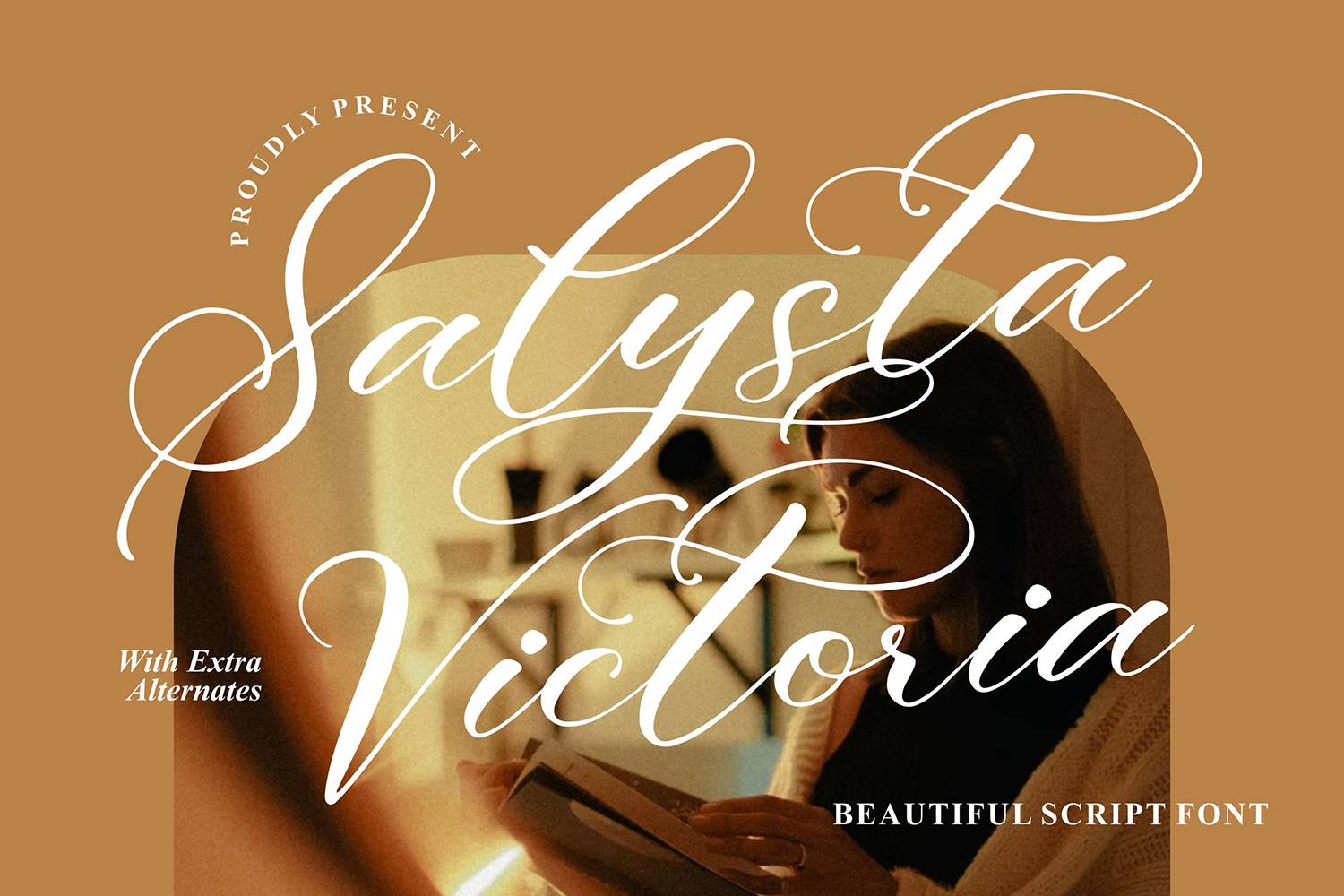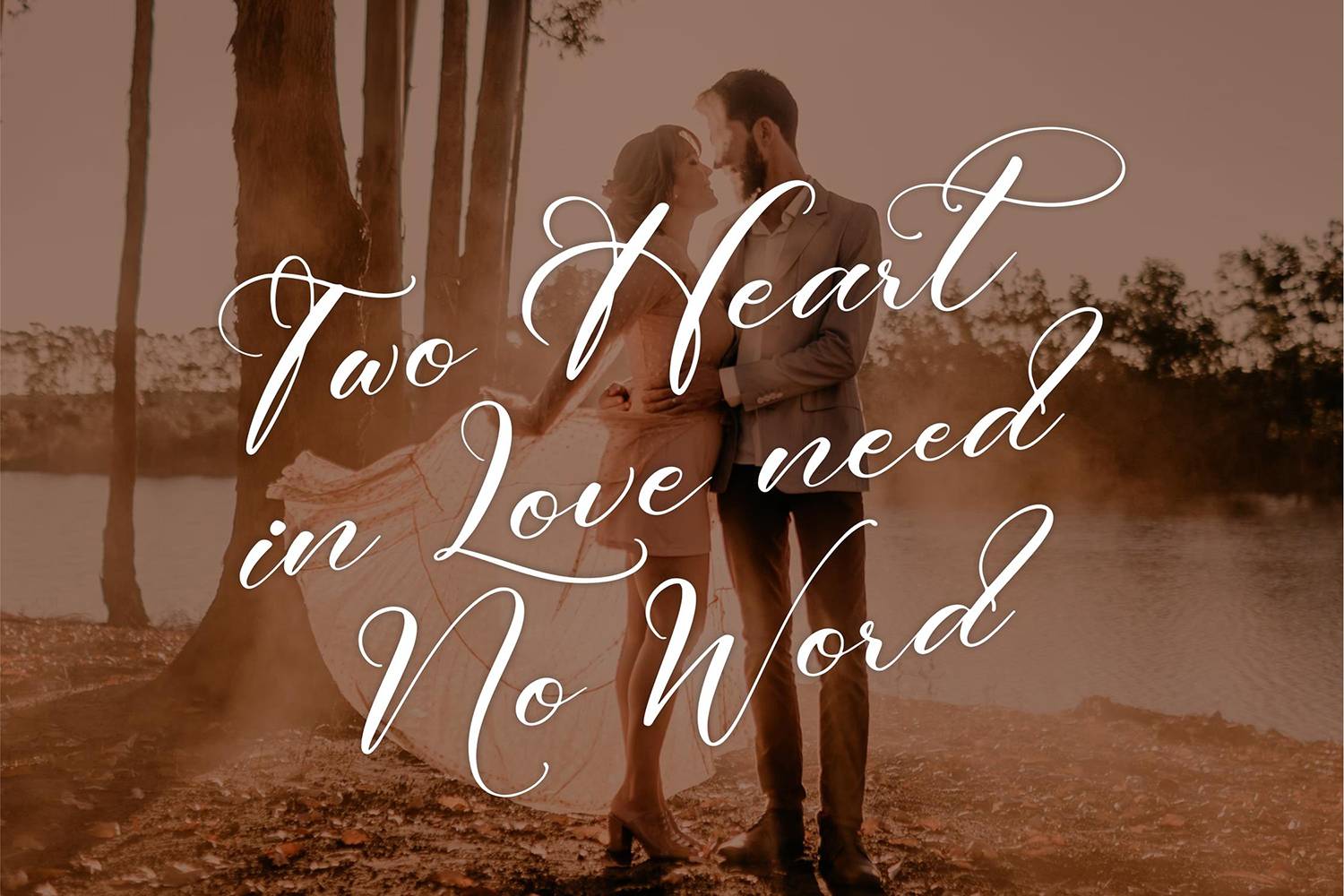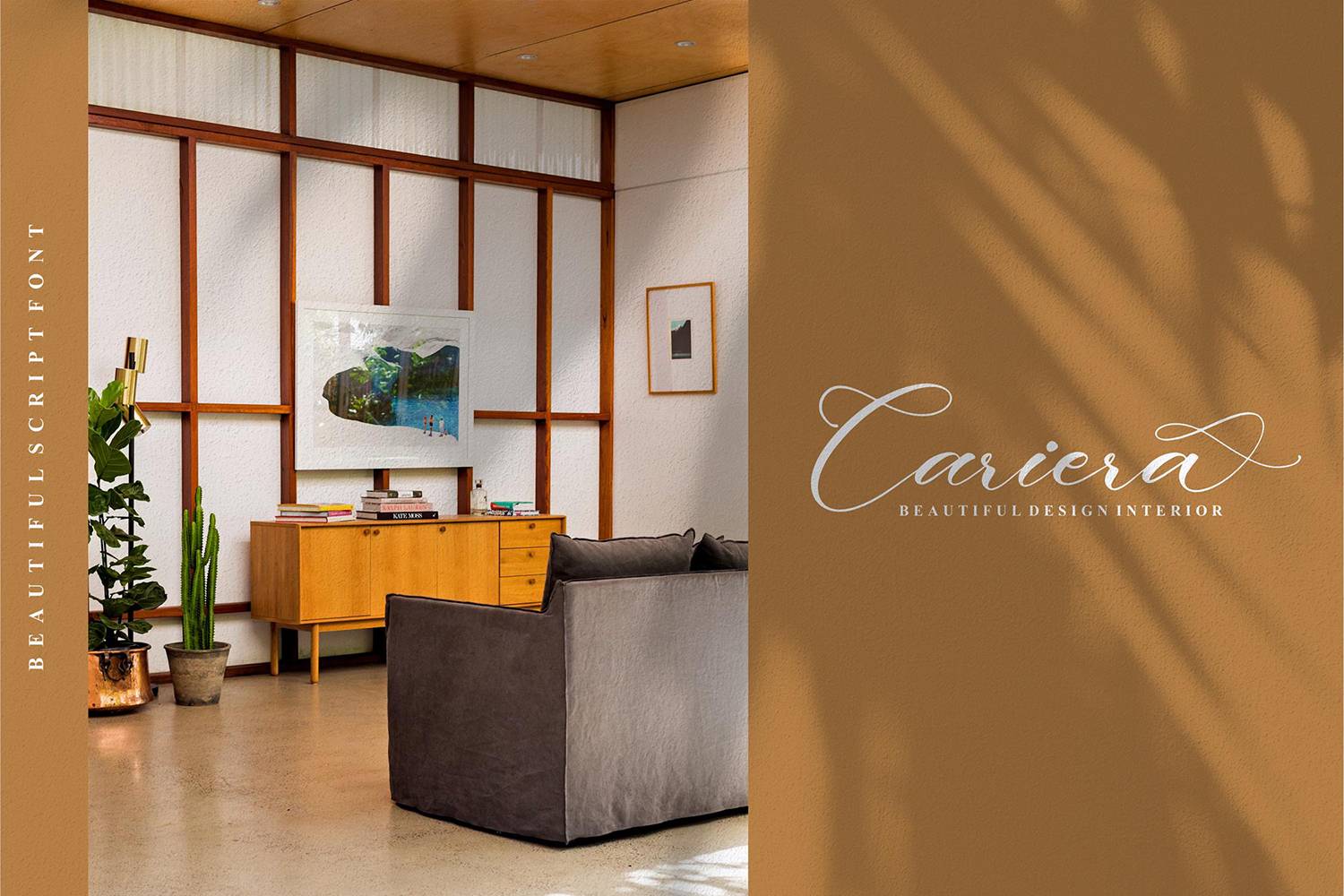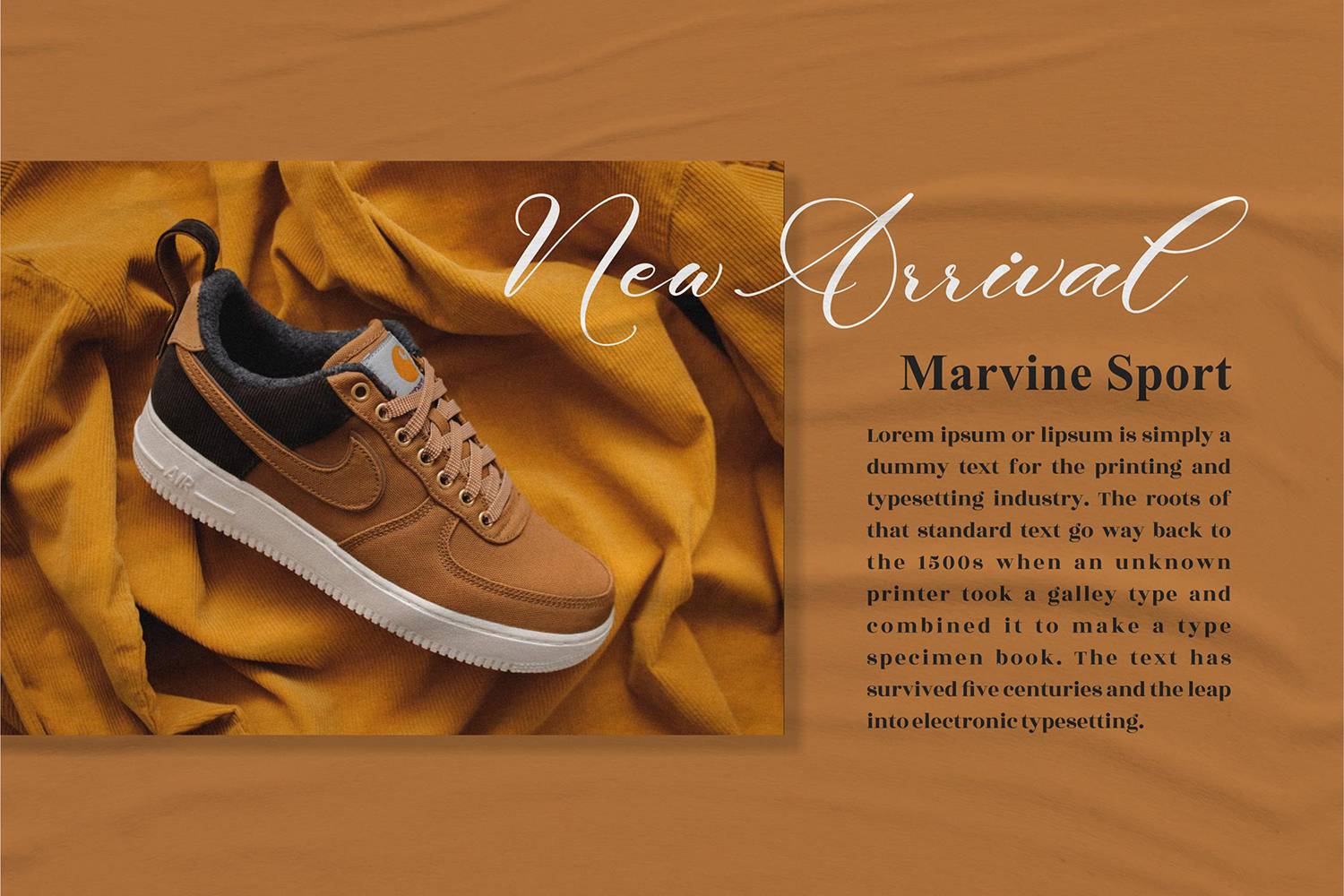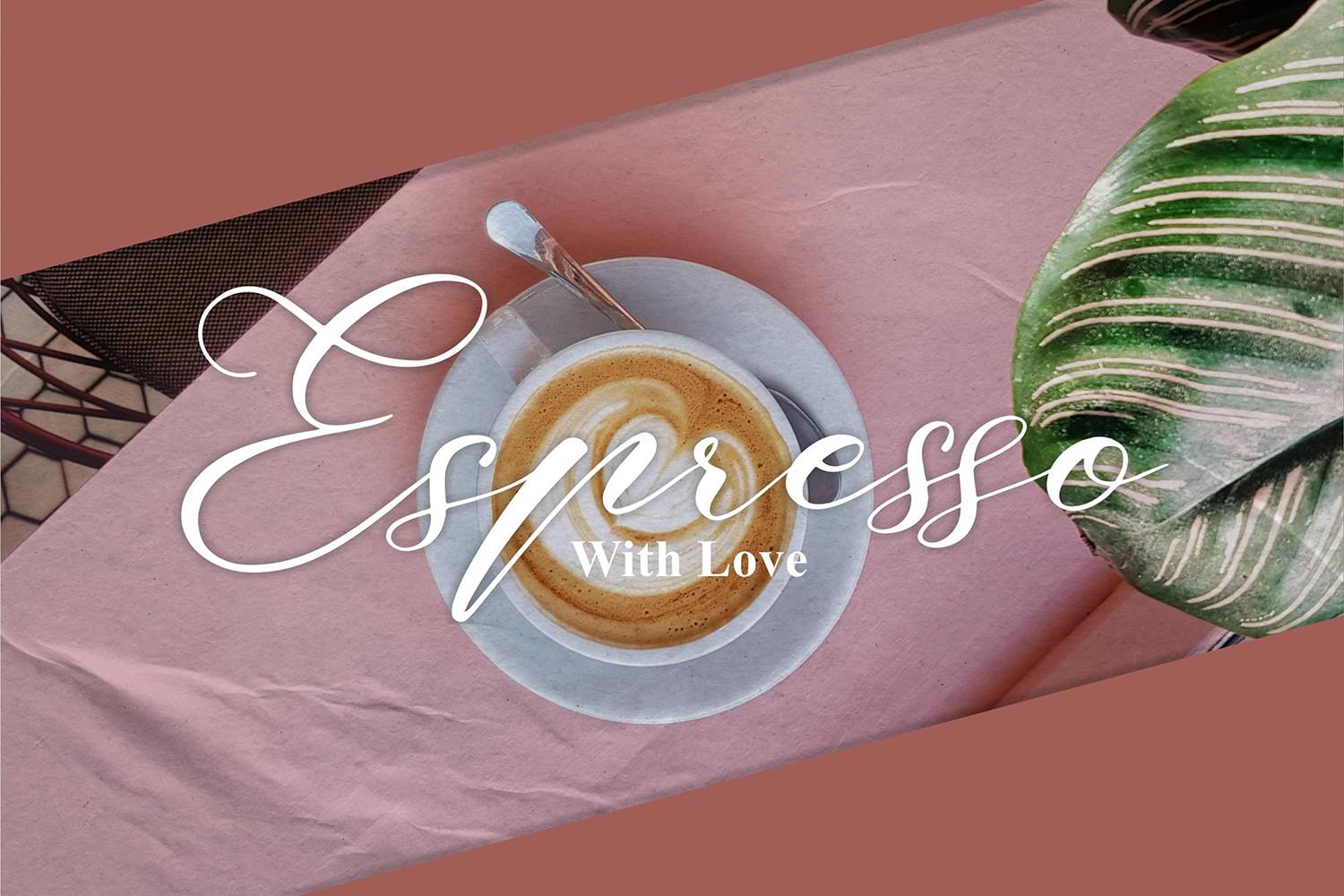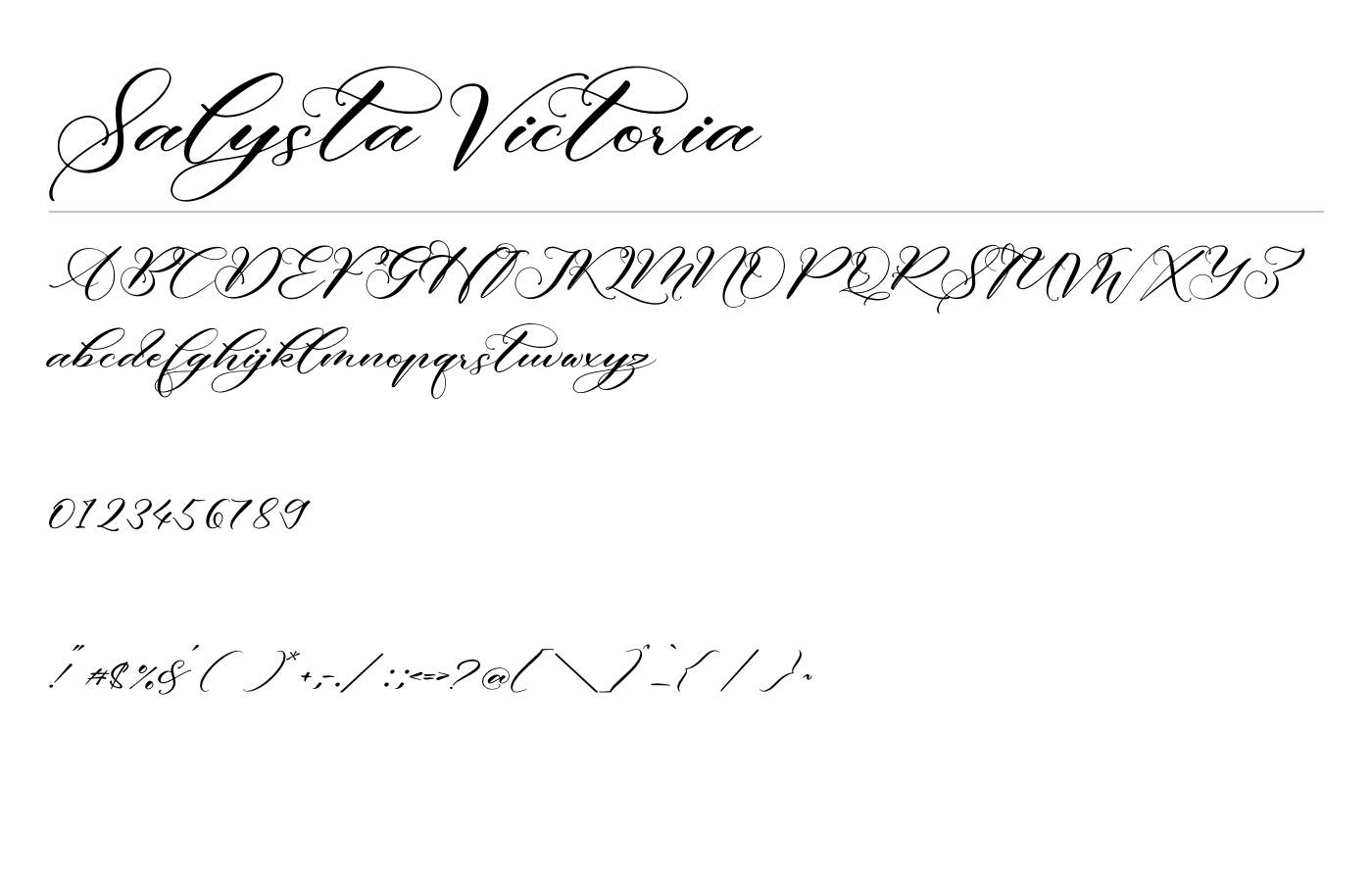
Salysta Victoria is an elegant script font featuring flowing, delicate strokes with decorative swirls that evoke a refined and sophisticated feel. Its fine, calligraphic lines and high contrast make it perfect for luxury branding, wedding invitations, and upscale editorial design where a graceful and artistic touch is desired. This font works best in large sizes for headlines or accent text, adding a timeless, romantic personality to any project.
Salysta Victoria Font
About Salysta Victoria Font